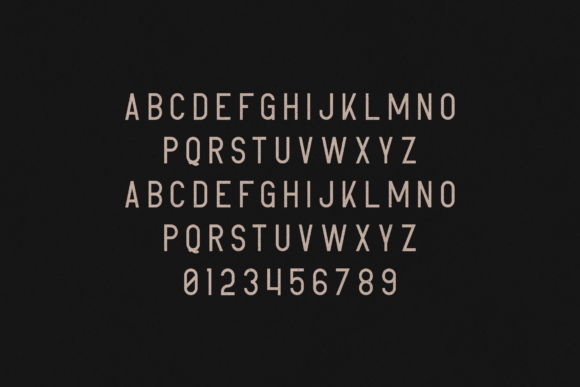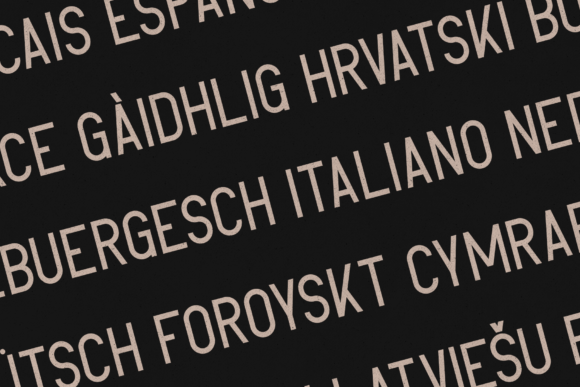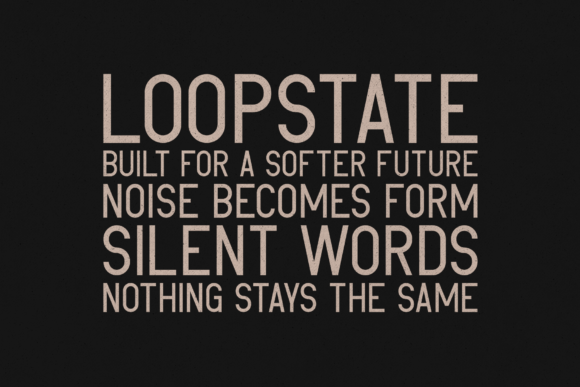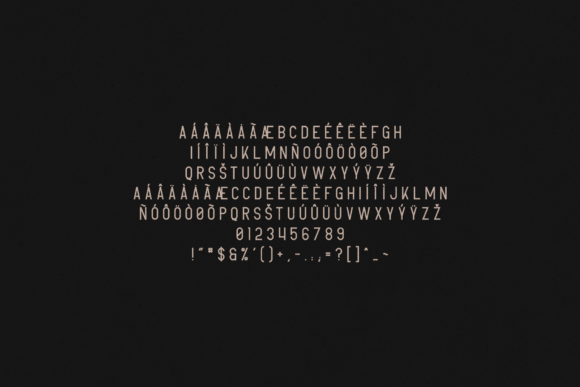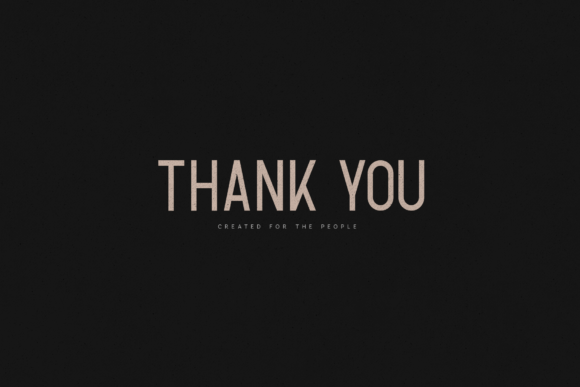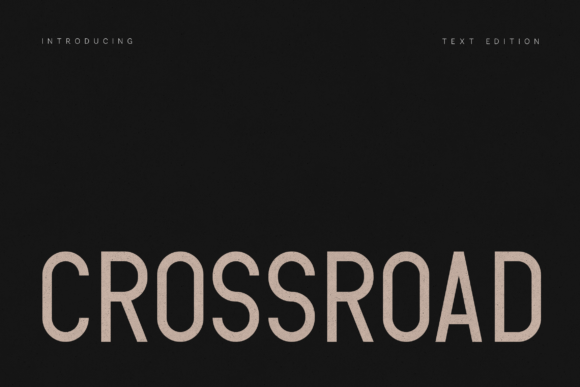
Introducing Crossroad Font: A Bold and Versatile Typeface for Modern Design
In the world of typography, a good font can make all the difference in the success of a design project. With the ever-growing demand for visually appealing and effective communication, designers and crafters are constantly on the lookout for typefaces that can deliver impact, clarity, and modernity. This is where Crossroad Font comes in – a bold condensed sans serif font that is built for impact, structure, and modern clarity.
Key Features of Crossroad Font
Crossroad Font boasts several key features that make it an ideal choice for designers and crafters. Its tall proportions and confident geometry deliver a strong visual rhythm while maintaining excellent readability. The condensed width makes it perfect for space-efficient headlines, posters, and branding systems that require presence without excess. This font is built for maximum impact in tight spaces, making it suitable for editorial sidebars, technical manuals, and bold packaging.
Crossroad Font: A Versatile Typeface for Various Applications
One of the standout features of Crossroad Font is its versatility. The font comes in two editions: the standard Crossroad font and the Crossroad Text Edition. The standard font is ideal for bold and attention-grabbing applications, while the Crossroad Text Edition features a subtle grain and rounded corners that give it a “printed” feel, adding warmth to its utilitarian structure.
The Crossroad Text Edition font is perfect for designs that require a clear, legible font that still carries a vintage, industrial personality. This font is the ultimate utility player for your font library, blending the line between a neutral text face and a bold display character. Its clean construction and neutral tone make it suitable for a wide range of applications, from editorial design to packaging and branding.
Benefits of Using Crossroad Font
So, what are the benefits of using Crossroad Font in your design projects? Here are a few:
- Impact and Clarity: Crossroad Font is designed to deliver impact and clarity, making it perfect for headlines, posters, and other attention-grabbing applications.
- Versatility: The font comes in two editions, making it suitable for a wide range of applications, from editorial design to packaging and branding.
- Readability: Despite its condensed width, Crossroad Font maintains excellent readability, making it perfect for body text and other applications where legibility is crucial.
- Unique Personality: The Crossroad Text Edition font features a subtle grain and rounded corners, giving it a unique and distinctive personality.
Tips for Using Crossroad Font Effectively
To get the most out of Crossroad Font, here are a few tips for using it effectively:
- Use it for Headlines and Titles: Crossroad Font is perfect for headlines and titles, where its bold and condensed width can make a big impact.
- Experiment with Different Weights: The font comes in different weights, so experiment with different weights to find the one that works best for your design.
- Pair it with Other Fonts: Crossroad Font can be paired with other fonts to create a unique and visually appealing typography system.
- Use it for Editorial Design: The Crossroad Text Edition font is perfect for editorial design, where its subtle grain and rounded corners can add a touch of warmth and personality.
In conclusion, Crossroad Font is a bold and versatile typeface that is perfect for designers and crafters looking for a font that can deliver impact, clarity, and modernity. Its condensed width, confident geometry, and excellent readability make it suitable for a wide range of applications, from editorial design to packaging and branding. With its unique personality and versatility, Crossroad Font is an excellent addition to any font library.
Whether you’re designing a bold and attention-grabbing headline or a clear and legible body text, Crossroad Font is the perfect choice. So, why not give it a try and see how it can elevate your design projects to the next level?